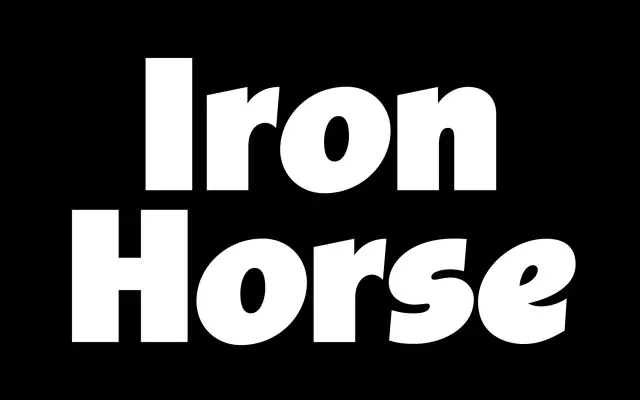
Blueberry
OTT Foundry · Eliott Grunewald
A comic book lettering typeface by Eliott Grunewald, named in tribute to the classic Franco-Belgian western saga by Giraud and Charlier.
Designed by Eliott Grunewald and developed by OTT, Blueberry draws on the hand-lettered traditions of European comics, specifically the mechanical lettering style that became standardised in the bande dessinée tradition. Its rounded, open letterforms are suited to editorial projects, children's publishing and branding that calls for a friendly, informal register. The extensive Latin Extended character set covers a broad range of European languages.
Blueberry imitates comic book hand-lettering, with rounded, whimsical letterforms evolving toward the mechanical lettering conventions seen in Franco-Belgian comics. It is best classified as a display typeface in the comic/hand-lettered subcategory.